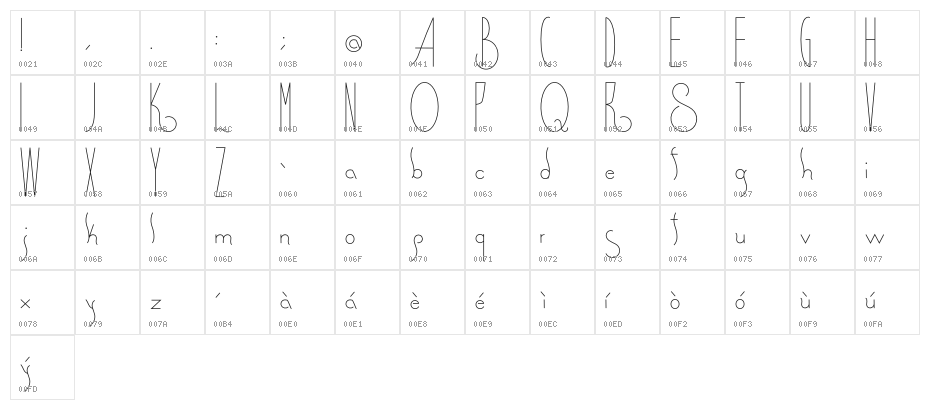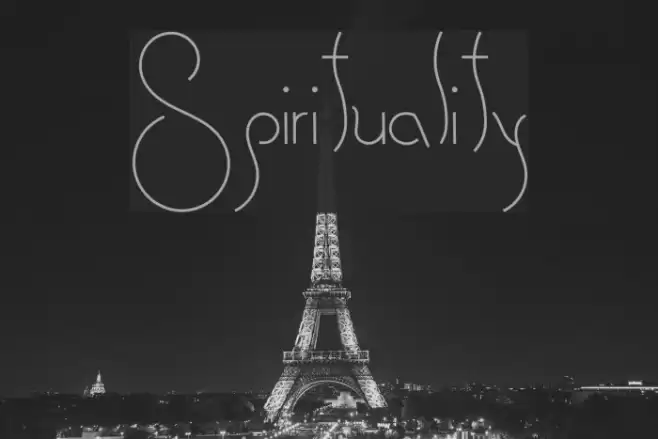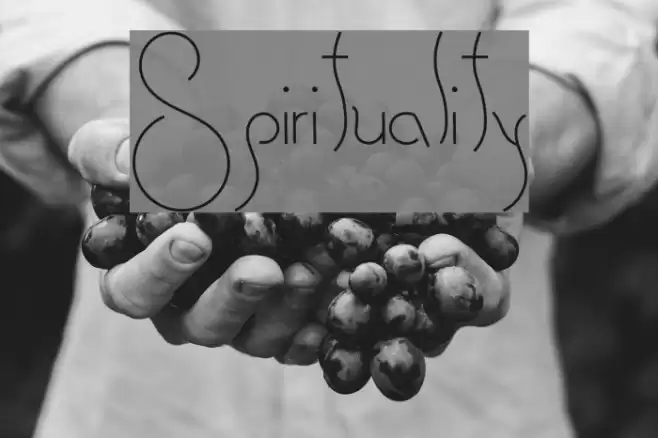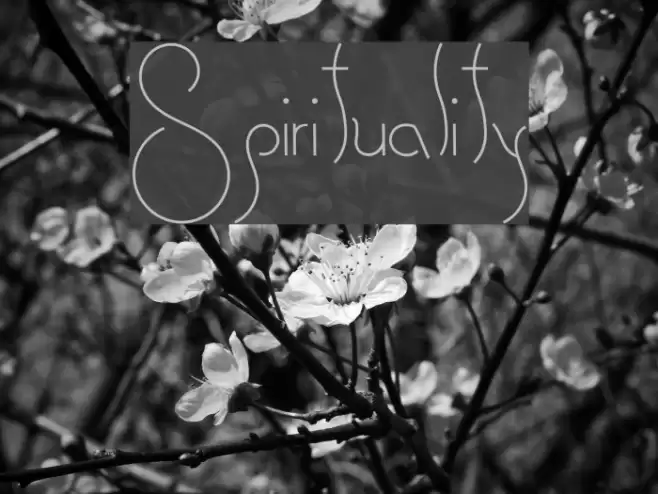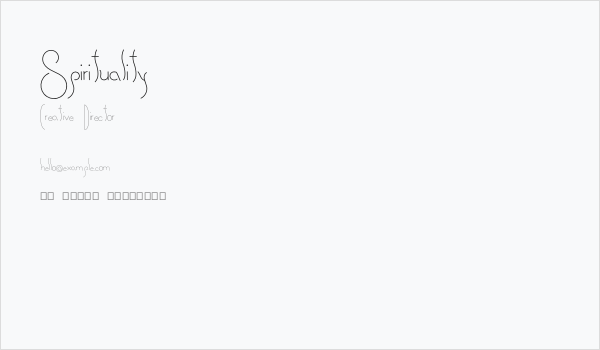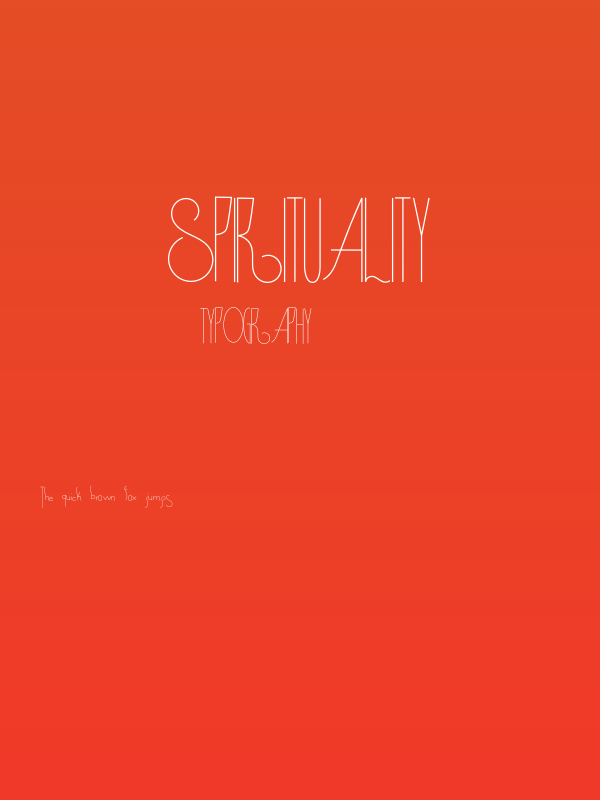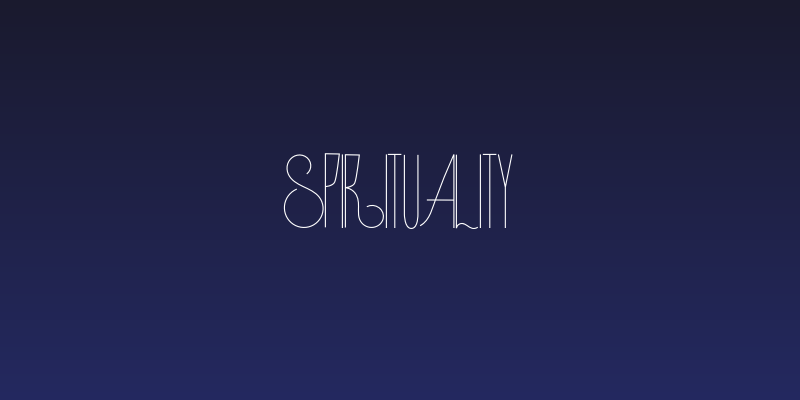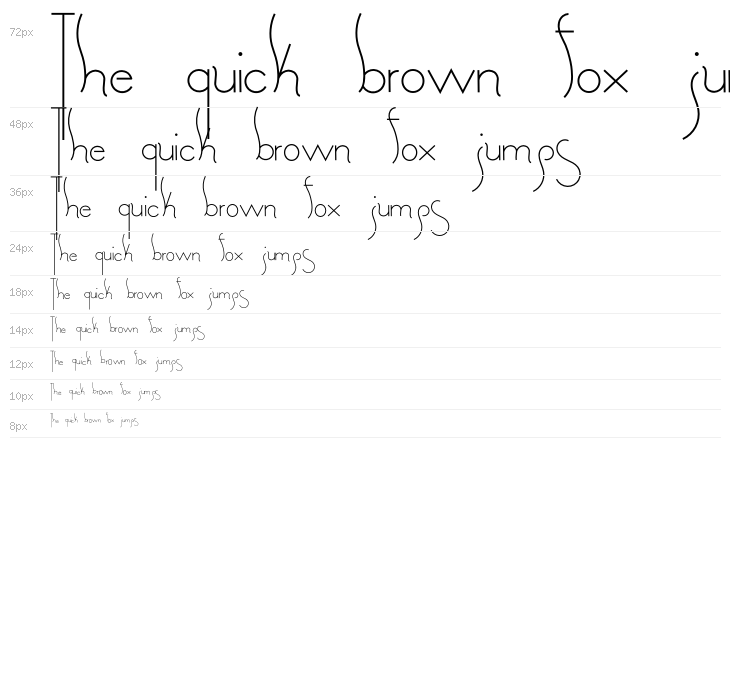
Spirituality Font
Spirituality Description
This font features an elegant and artistic design with elongated and slender letterforms. The uppercase letters are tall and narrow, with unique curves and angles that give them a sophisticated appearance. The lowercase letters maintain a consistent style, with some characters featuring distinctive loops and swirls. The overall design is minimalistic yet expressive, making it suitable for creative and artistic projects. The font's thin strokes and high contrast add to its refined and modern aesthetic, while the spacing between characters is balanced to ensure readability.
| Proposed Projects | Ideal for artistic projects, branding, invitations, and decorative purposes. |